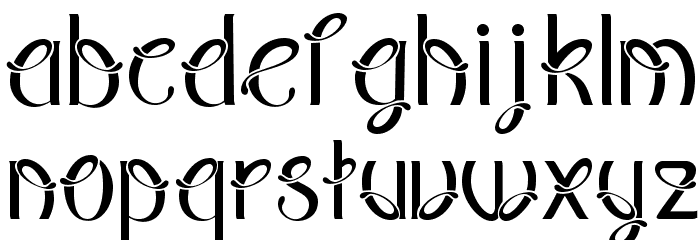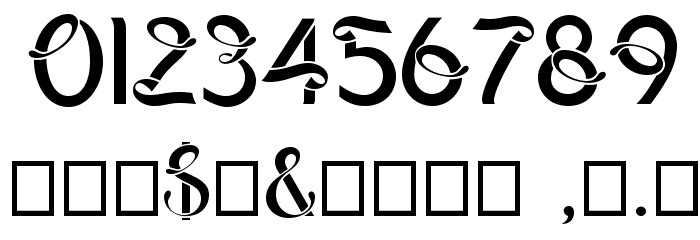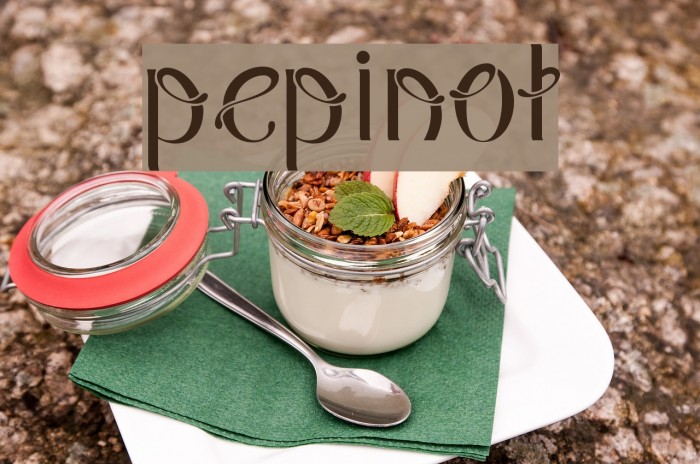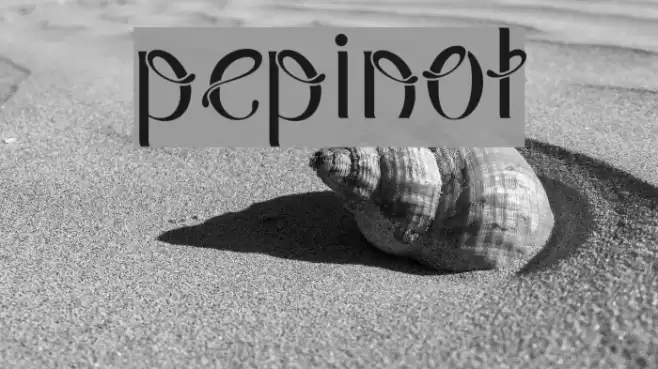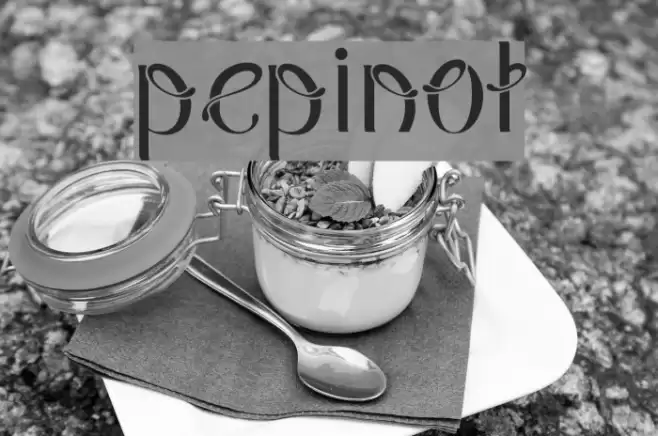
pepinot Font
This font features a unique and decorative style, characterized by elegant swirls and loops integrated into each letterform. The uppercase and lowercase letters maintain a consistent design theme, with intricate details that add a touch of sophistication. The numbers and special characters follow the same ornate style, making the font cohesive and visually appealing. The overall appearance is both artistic and modern, suitable for creative projects that require a distinctive and eye-catching typeface.
A decorative font with elegant swirls and loops, offering a modern and artistic style.
- Proposed Projects: Ideal for branding, invitations, posters, and any design project that benefits from a decorative and artistic touch.